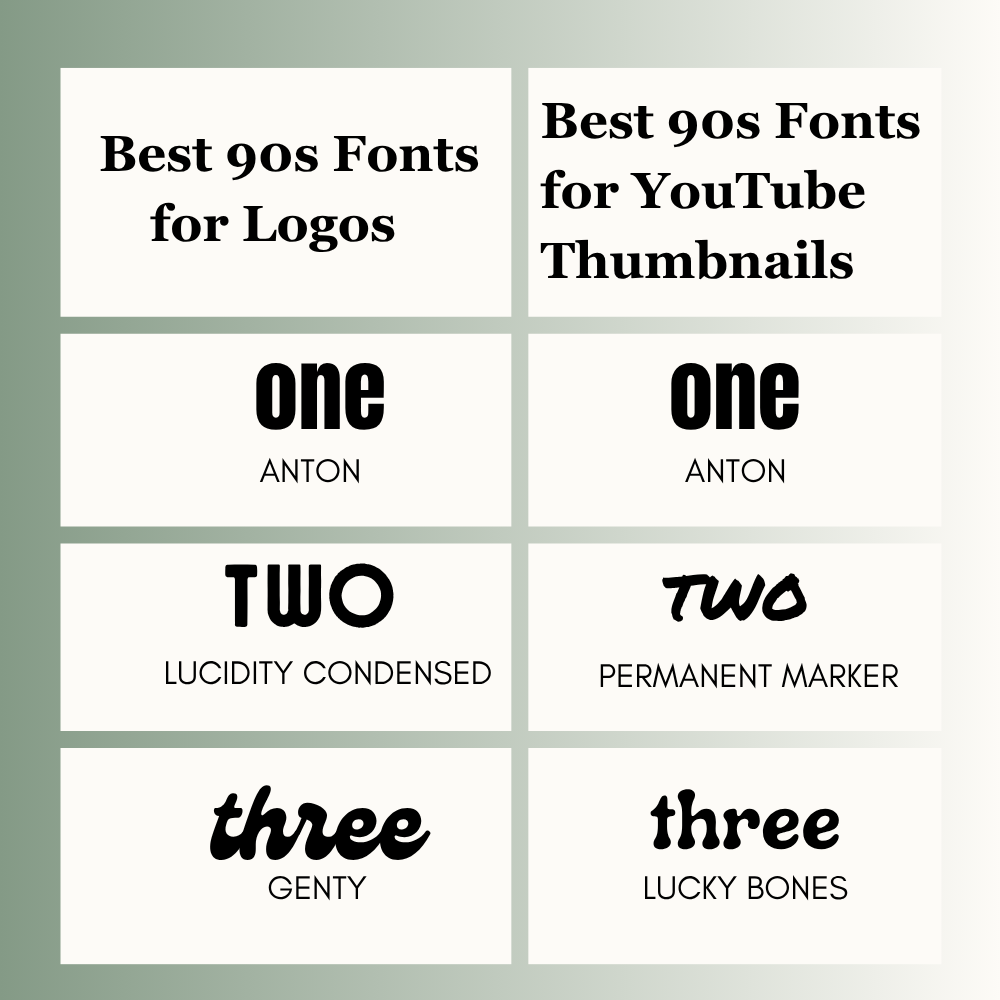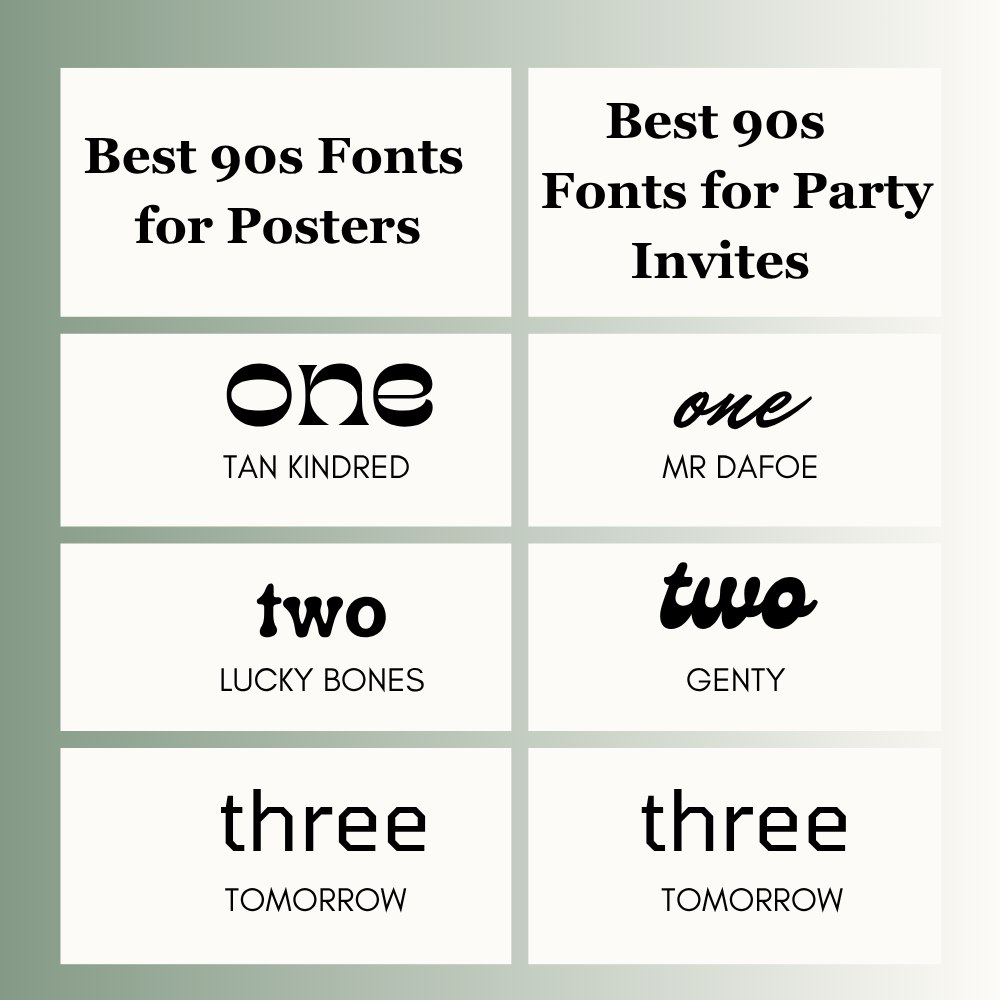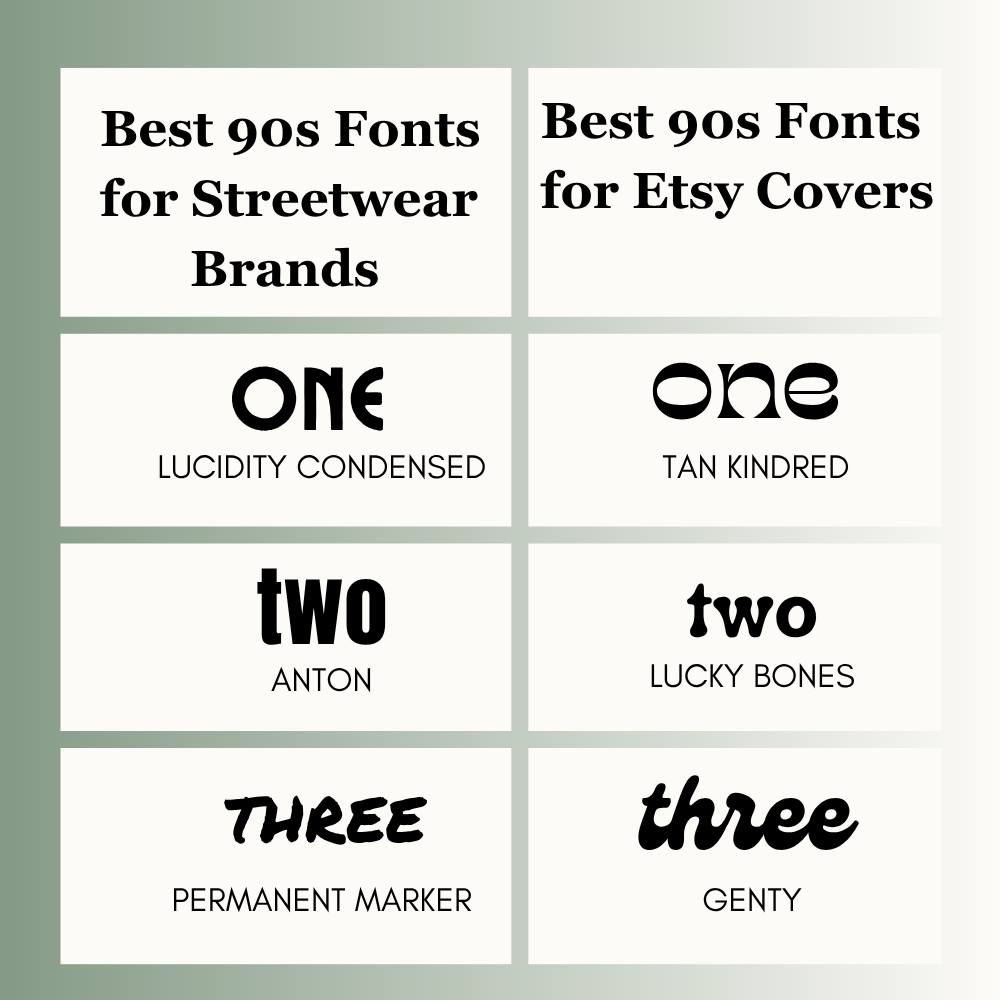
90s Fonts on Canva (Best Free & Paid Picks for Nostalgic Designs)
90s Fonts on Canva
Picking a 90s font in Canva can be quite annoying.You see a cool 90s design online, but when you try to recreate it for your own graphics, it just looks cheap or messy. Most of the fonts either look way too plain, or they are so difficult that you can’t even read the words.
After trying many different layouts, I’ve learned that a good font does most of the work for you. It sets the whole mood instantly. I put this list together to save you from scrolling through Canva for hours as this guide only focuses on 90s fonts on Canva that help real users create standout designs with confidence.
Quick Answer
The best 90s fonts on Canva are Tan Kindred, Mr Dafoe, Lucidity Condensed, Anton, Permanent Marker, Tomorrow, Genty, and Lucky Bones. These fonts work well for posters, thumbnails, logos, party invites, branding, streetwear, and nostalgic designs.
What Makes a Font Feel 90s?
A strong 90s font should:
• Feel nostalgic or retro
• Stay easy to read
• Match the design theme
• Add personality
• Help text stand out
• Work well in headlines and branding
If a font looks messy or unreadable, it loses value quickly.
Best 90s Fonts on Canva
Font NameBest ForStyleAvailability
Tan KindredPosters, CoversFunky RetroFree
Mr DafoeInvitations, GraphicsRetro ScriptFree
Lucidity CondensedLogos, StreetwearBold CondensedFree
AntonThumbnails, PostersHeavy BoldFree
Permanent MarkerGrunge DesignsMarker StyleFree
TomorrowParty GraphicsFuturistic 90sFree
GentyBranding, Social PostsPlayful RetroFree
Lucky BonesFun DesignsChunky 90sFree
Best Fonts by Use Case
Best 90s Fonts for Logos
• Anton
• Lucidity Condensed
• Genty
Best 90s Fonts for YouTube Thumbnails
• Anton
• Permanent Marker
• Lucky Bones
Best 90s Fonts for Posters
• Tan Kindred
• Lucky Bones
• Tomorrow
Best 90s Fonts for Party Invites
• Mr Dafoe
• Genty
• Tomorrow
Best 90s Fonts for Streetwear Brands
• Lucidity Condensed
• Anton
• Permanent Marker
Best 90s Fonts for Etsy Covers
• Tan Kindred
• Lucky Bones
• Genty
Who Should Use 90s Canva Fonts?
These fonts are useful for:
• Content creators
• Clothing brands
• Event designers
• Etsy sellers
• Bloggers
• Agencies and freelancers
• Small businesses
• Personal brands
If your design needs nostalgia, fun energy, or a memorable style, these fonts can help.
Best Canva Font Pairings
Use one standout 90s font with one clean supporting font.
• Anton + Open Sans
• Genty + Montserrat
• Permanent Marker + Lato
• Tomorrow + DM Sans
This keeps the design stylish and balanced.
How to Choose the Right 90s Font
1. Check the Goal
Logo, poster, invite, thumbnail, cover, or branding?
2. Know Your Audience
A party audience needs a different style than a business audience.
3. Test Readability
Can people read it in one quick look?
4. Use Contrast
Pair one 90s font with one simple font.
5. Keep It Consistent
Use the same style across the design.
Common Mistakes to Avoid
• Using too many decorative fonts
• Choosing unreadable styles
• Making text too small
• Ignoring spacing
• Mixing random styles
• Overcrowding the layout
Expert Tip
A font can feel nostalgic without looking outdated. The best results usually come from fonts that feel fun but still clear and usable.
Frequently Asked Questions
What is the best 90s font on Canva?
Anton, Tan Kindred, and Genty are popular choices.
Which Canva fonts are best for logos?
Anton, Lucidity Condensed, and Genty work well.
What fonts are best for thumbnails?
Anton, Permanent Marker, and Lucky Bones are strong options.
Are free Canva fonts enough?
Yes. Many free 90s fonts work very well.
How many fonts should I use?
Use two fonts in most designs.
Are paid fonts better?
Not always. Free fonts are often enough. Paid fonts may offer more variety.
Final Thoughts
My formula for 90s designs is pretty simple: I use Anton when I need to grab attention fast, and Tan Kindred or Lucidity Condensed if I’m aiming for that cool, streetwear branding look. For something more fun and playful, Lucky Bones or Mr Dafoe usually do the trick.
In the end, the only rule that actually matters is readability. A font can look incredibly nostalgic, but if people have to squint to read it, it’s not working. Pick a style that fits your project, make sure it’s clean, and you’re good to go.